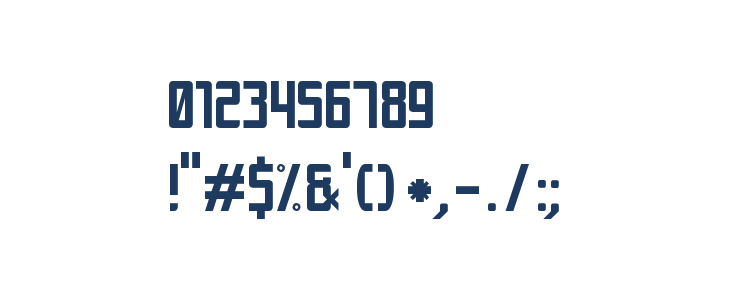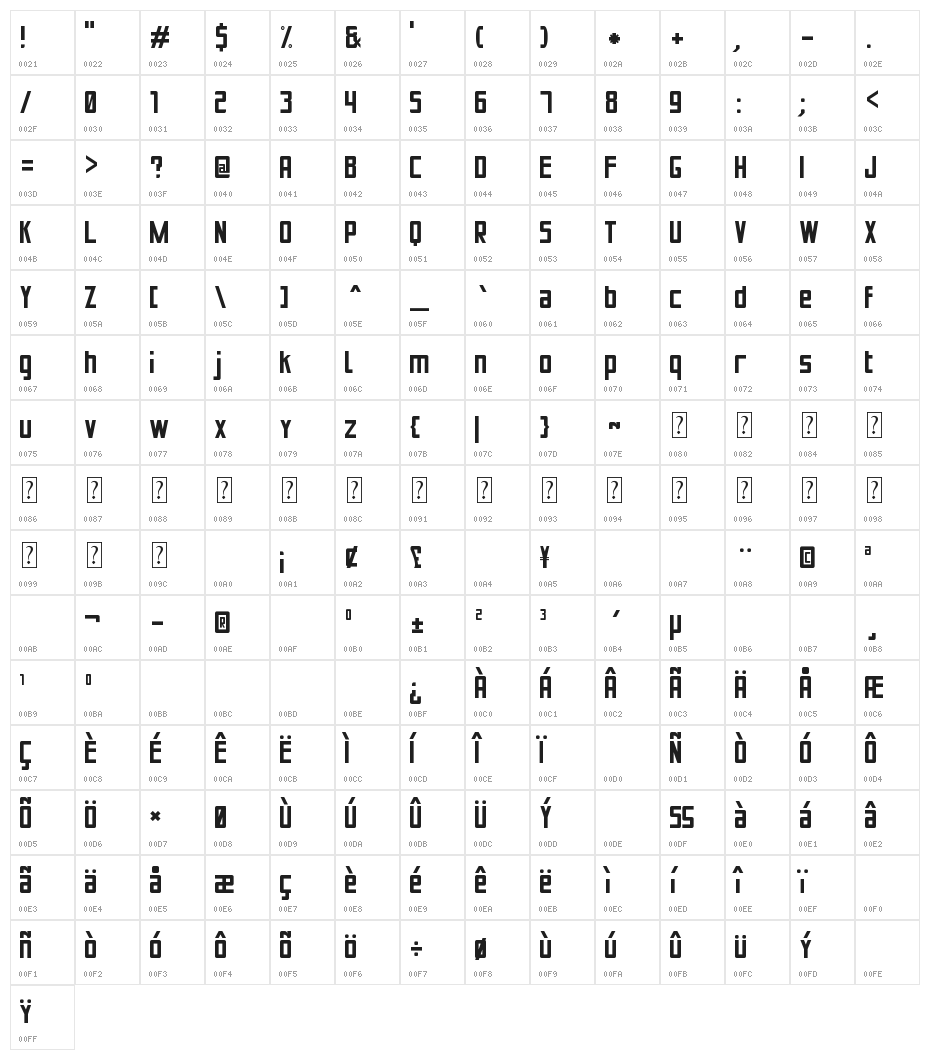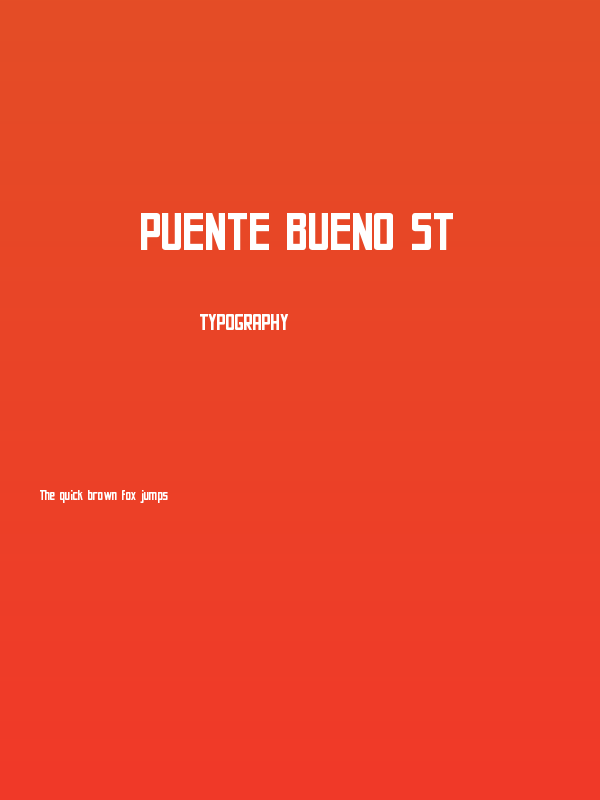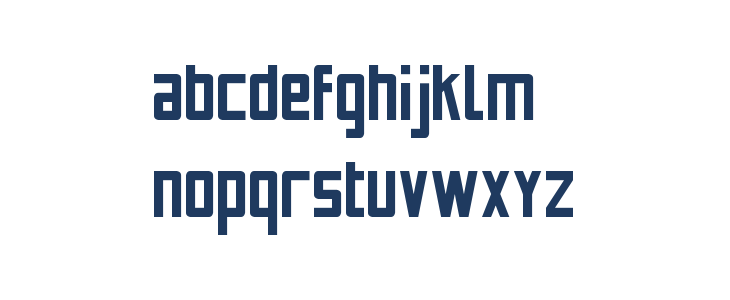
Puente Bueno St Font
Puente Bueno St Description
This font features a bold, geometric style with strong, angular lines and a modern aesthetic. The uppercase and lowercase letters maintain a consistent width, giving it a monospaced appearance, although it is not strictly monospaced. The numerals and special characters follow the same design principles, ensuring uniformity across all glyphs. The font's design is clean and highly legible, making it suitable for various digital and print applications. Its boldness and clarity make it stand out, while the geometric shapes add a contemporary touch.
Proposed ProjectsIdeal for branding, headlines, posters, and digital interfaces where a modern and bold statement is needed.